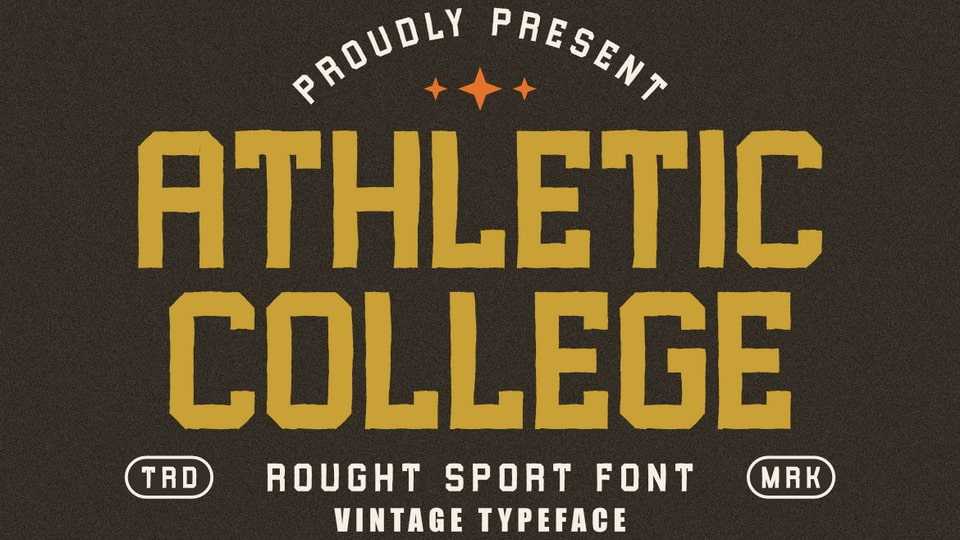
Download Athletic College font, a robust rough sport typeface with a distinct vintage aesthetic. This typeface brings a powerful and energetic feel.
Designer: Masyafi Studio